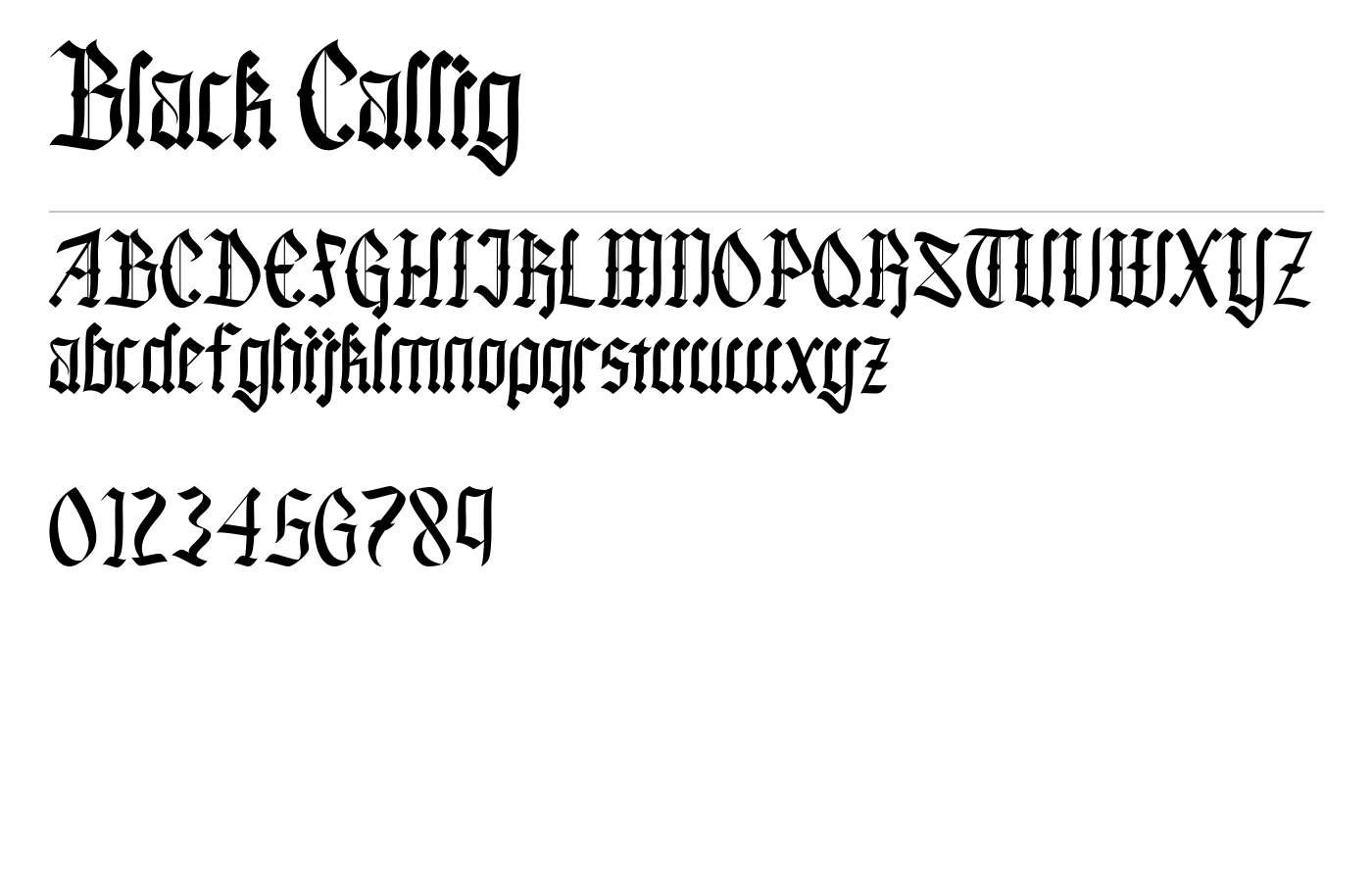
Black Callig is a striking blackletter serif font characterized by its bold weight and sharp, angular strokes that evoke traditional Gothic calligraphy. Its condensed letterforms and high contrast between thick and thin elements create a dramatic, historic feel perfect for vintage-inspired designs, logos, or headlines seeking a strong, medieval, or formal atmosphere. This font shines in decorative and branding contexts where a bold, classic statement is desired.
| Font family | Black Callig Font |
| Designer | Wallby Hand |